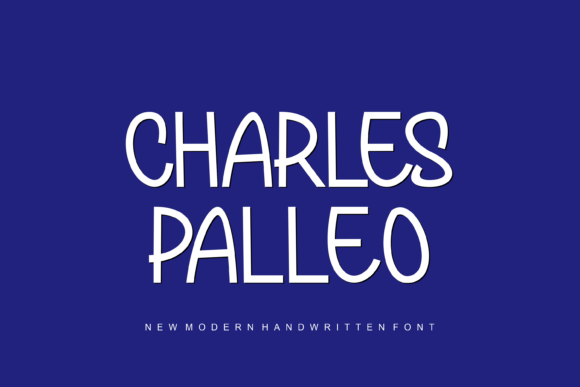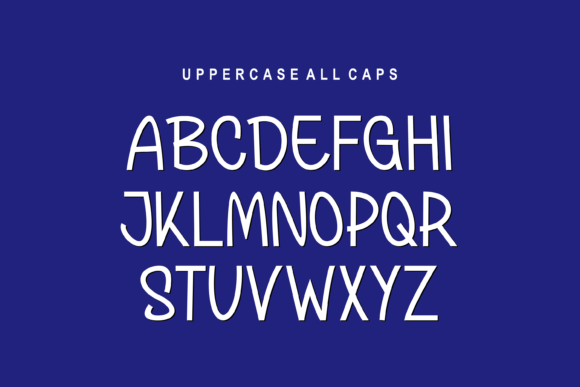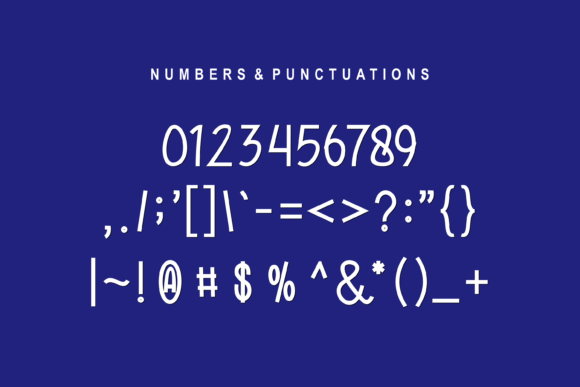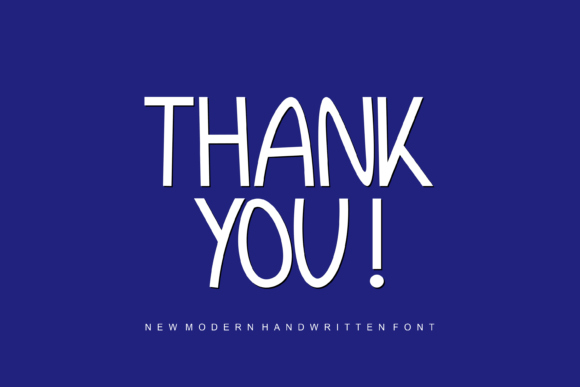
Blackpalleo Font
About Blackpalleo Font
“Blackpalleo” is a fun and friendly handwritten font that can easily become your favorite go-to font for a wide range of occasions and design projects. This versatile font is well-suited for crafts, digital design, presentations, and greeting card creation, making it a valuable addition to your font library.
The defining characteristics of “Blackpalleo” are its fun and friendly nature. Its handwritten style imparts an approachable and authentic feel to your designs, making it an ideal choice for projects that require a personal touch.
Imagine using “Blackpalleo” to create engaging and playful digital graphics for social media or presentations that resonate with your audience. Visualize incorporating this font into greeting cards, making them warm and inviting. “Blackpalleo” can also be your go-to choice for crafting eye-catching event posters or DIY projects that require a touch of friendliness and creativity.
In conclusion, “Blackpalleo” is not just a font; it’s a design tool that infuses fun and friendliness into your creative work. Its handwritten style makes it a versatile choice for projects where a personal and approachable tone is desired. Embrace “Blackpalleo” as a font that enhances your designs and makes them stand out with a fun and friendly flair, suitable for any occasion.